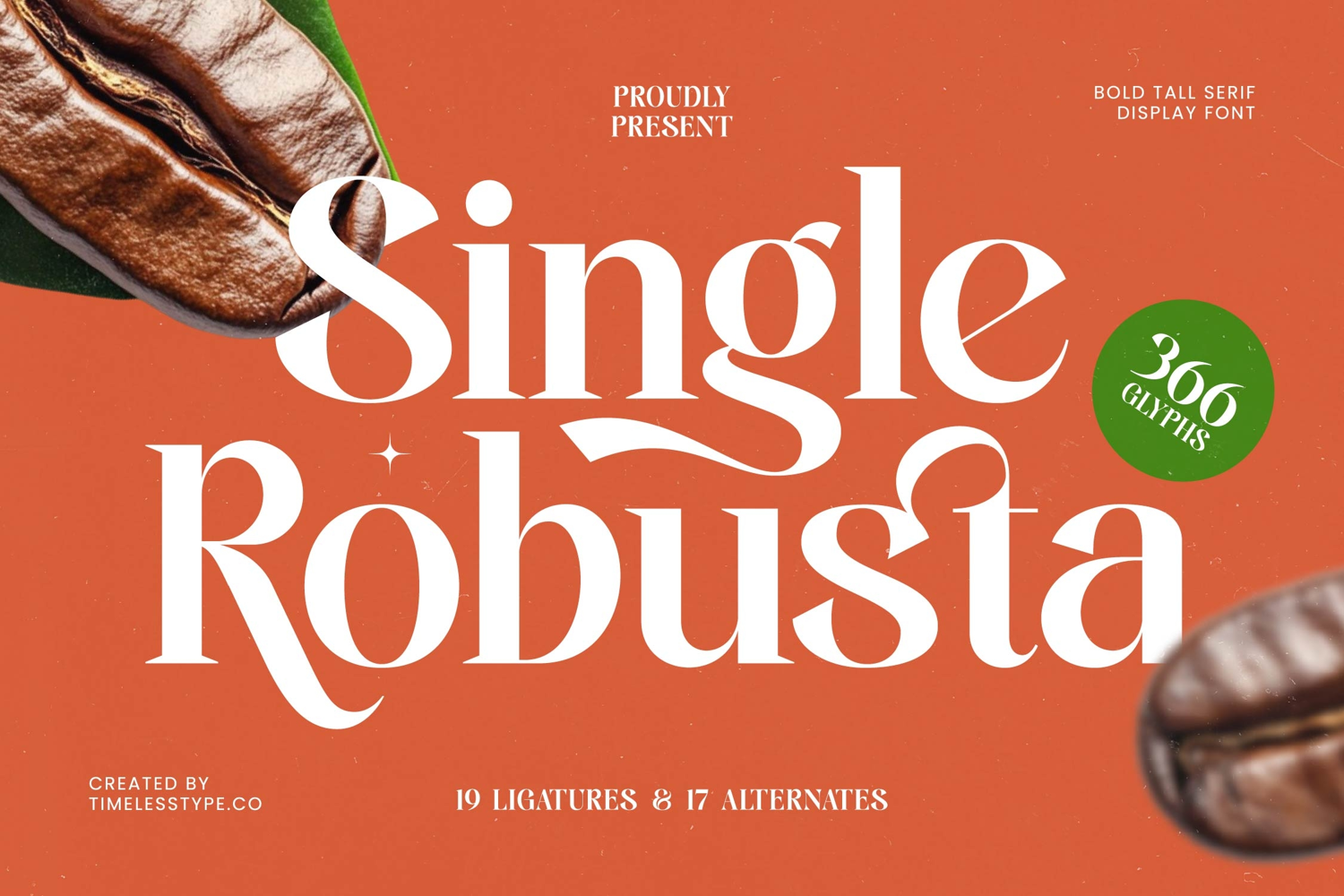
Single Robusta - Bold Tall Serif Dislay Font
Single Robusta Italic
Single Robusta
Single Robusta - Bold Tall Serif Dislay Font
Elevate your designs with unparalleled elegance using Font Single Robusta - Bold Tall Serif Dislay Font Serif Display. This magnificent typeface masterfully combines a bold tall serif display aesthetic with a refined, high-contrast design, creating an instantly captivating presence. Its distinctive character shapes and precise serifs offer a blend of timeless appeal and modern flair, ensuring your message is conveyed with undeniable sophistication and impact.
Crafted for visual distinction, Font Single Robusta - Bold Tall Serif Dislay Font Serif Display boasts a meticulous design that truly sets it apart. With an expansive set of 366 glyphs, including 19 ligatures and 17 alternates, designers gain immense creative flexibility. These advanced OpenType features allow for seamless customization, enabling the creation of truly unique typographic compositions that resonate with a professional and artistic touch for any project.